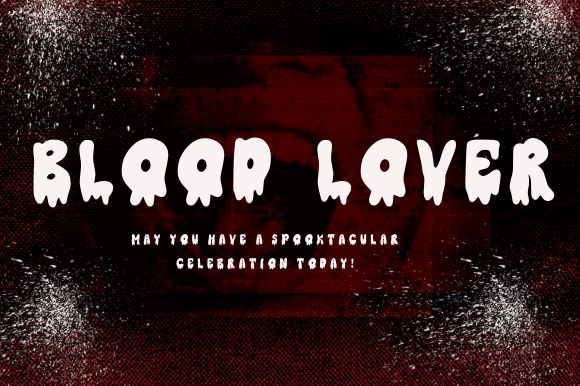
Unleash your creative spirit and embark on a spine-chilling design journey with Blood Lover Font – the ultimate display font that will send shivers down your spine!
Immerse yourself in the realm of the macabre as you explore the depths of this hauntingly beautiful font. Each letter, meticulously crafted with a sinister elegance, drips with an eerie charm that is sure to leave a lasting impression.
With Blood Lover Font, you'll have the power to transform your designs into captivating works of art that exude a sense of mystery and intrigue. Its unique and eye-catching characters will make your designs stand out from the ordinary and leave your audience spellbound.
Whether you're creating Halloween-themed invitations, designing spooky posters, or crafting chilling social media graphics, Blood Lover Font is your go-to choice for creating designs that are both visually stunning and hauntingly memorable.
So, dive into the realm of darkness and let your creativity run wild with Blood Lover Font. Experience the thrill of crafting designs that are as captivating as they are eerie, and let your imagination take flight as you bring your spooky visions to life.